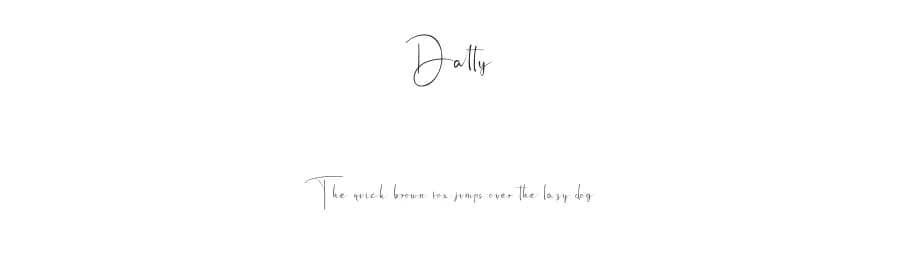
About Dalty Font
Dalty is a thin lettered and graceful script font. Fall for its ravishing style and use it to create gorgeous designs! Dalty is PUA encoded which means you can access all glyphs and swashes with ease!
Dalty Font is a script font that shines as a display or heading face. Pair it with a clean sans-serif or serif font for body text β the contrast creates a clear hierarchy while the two styles stay balanced and easy to read.
Dalty Font